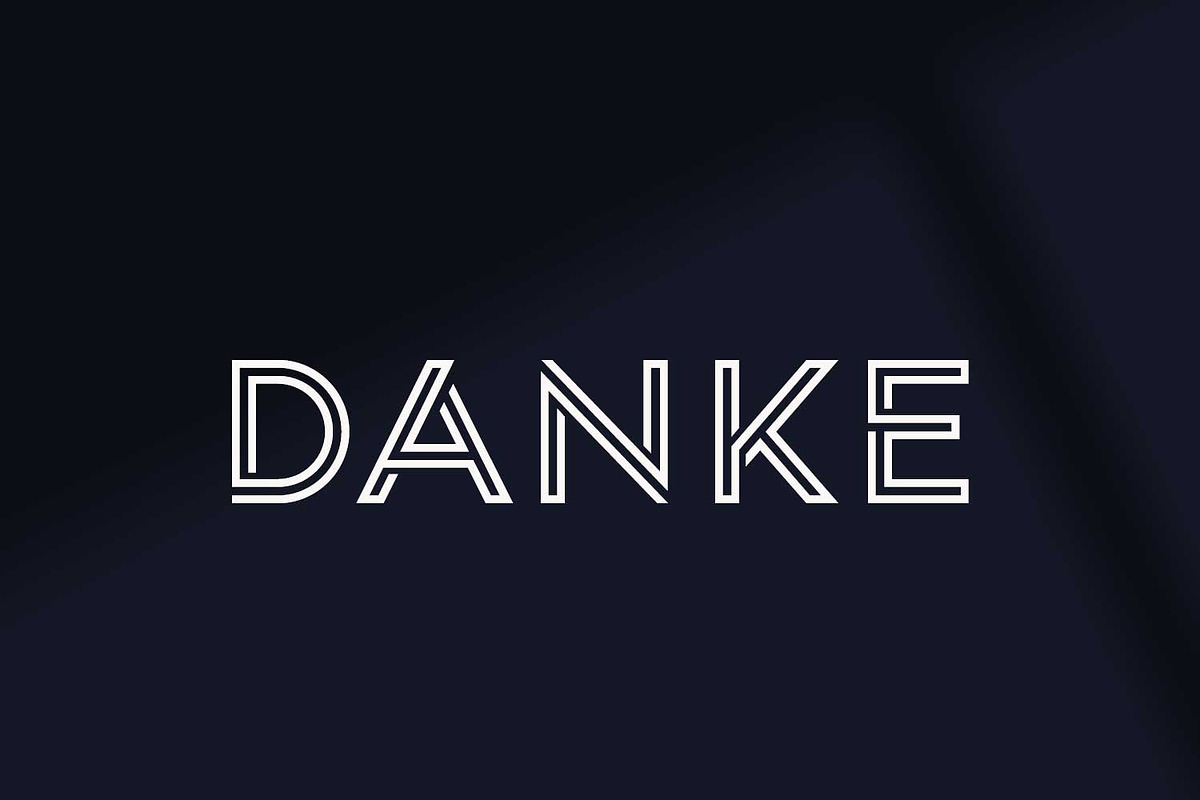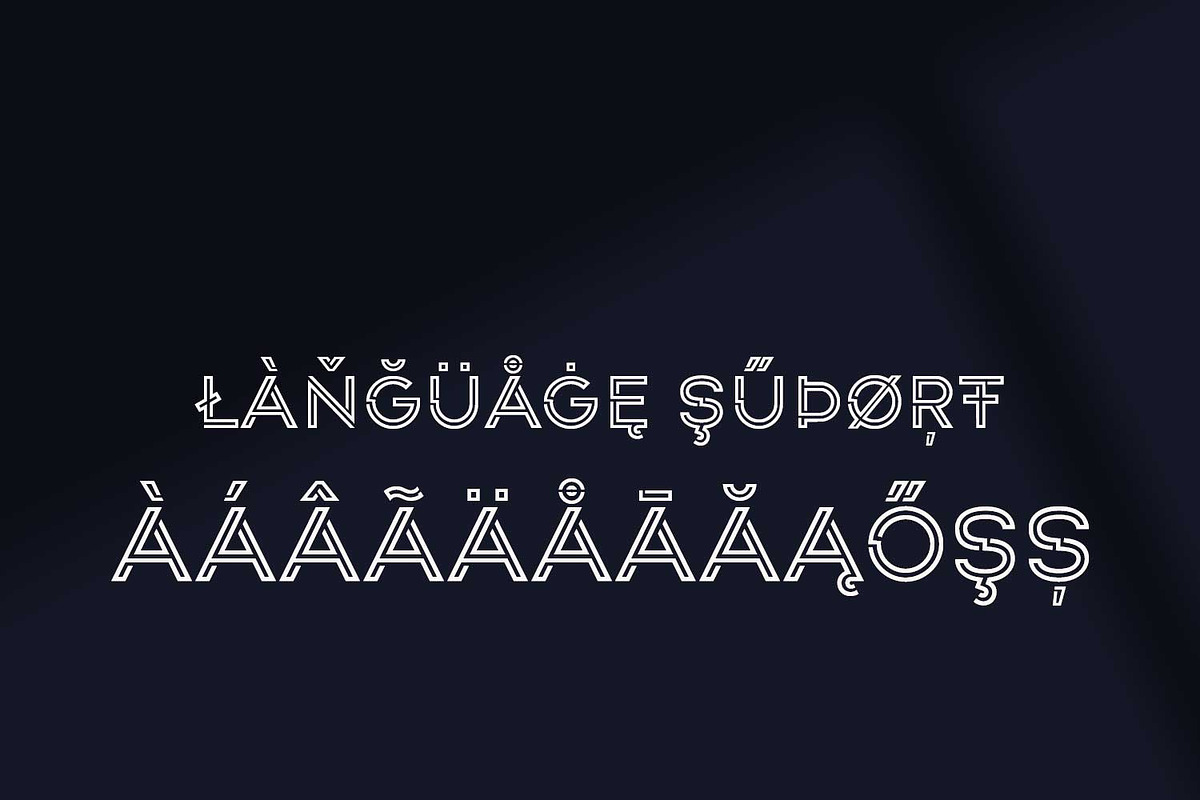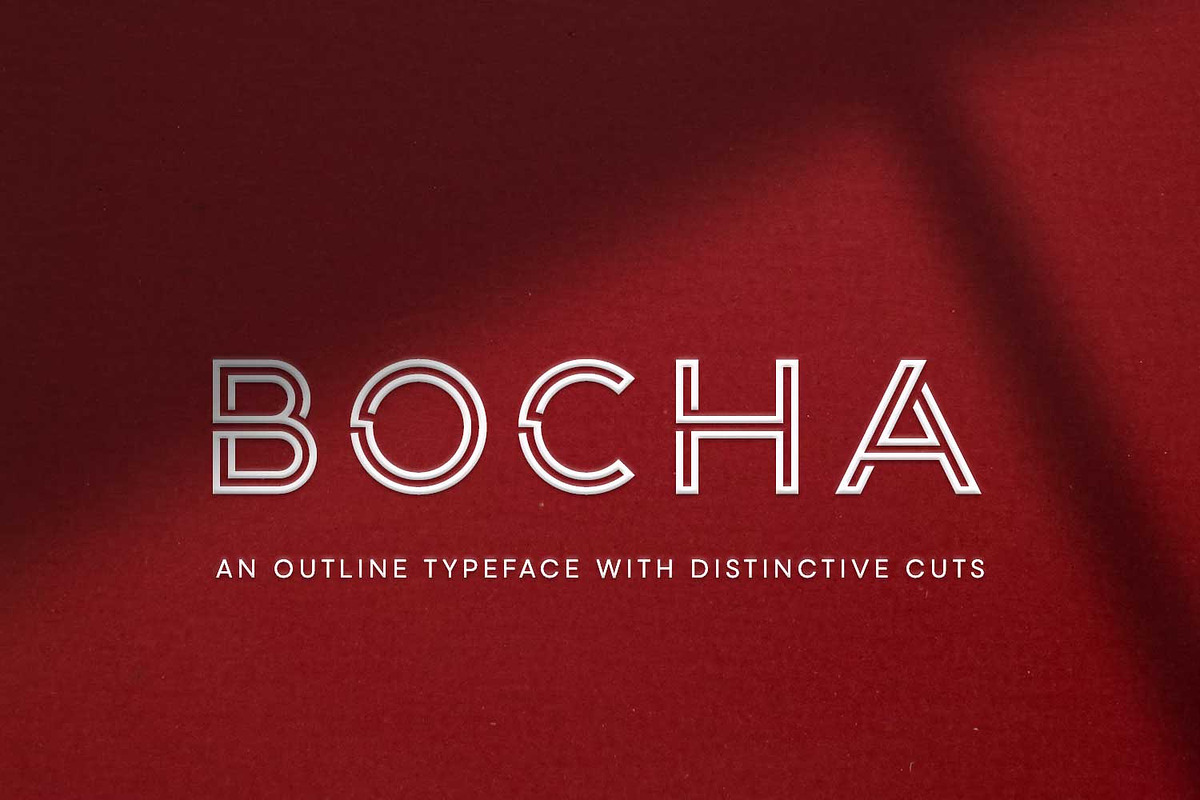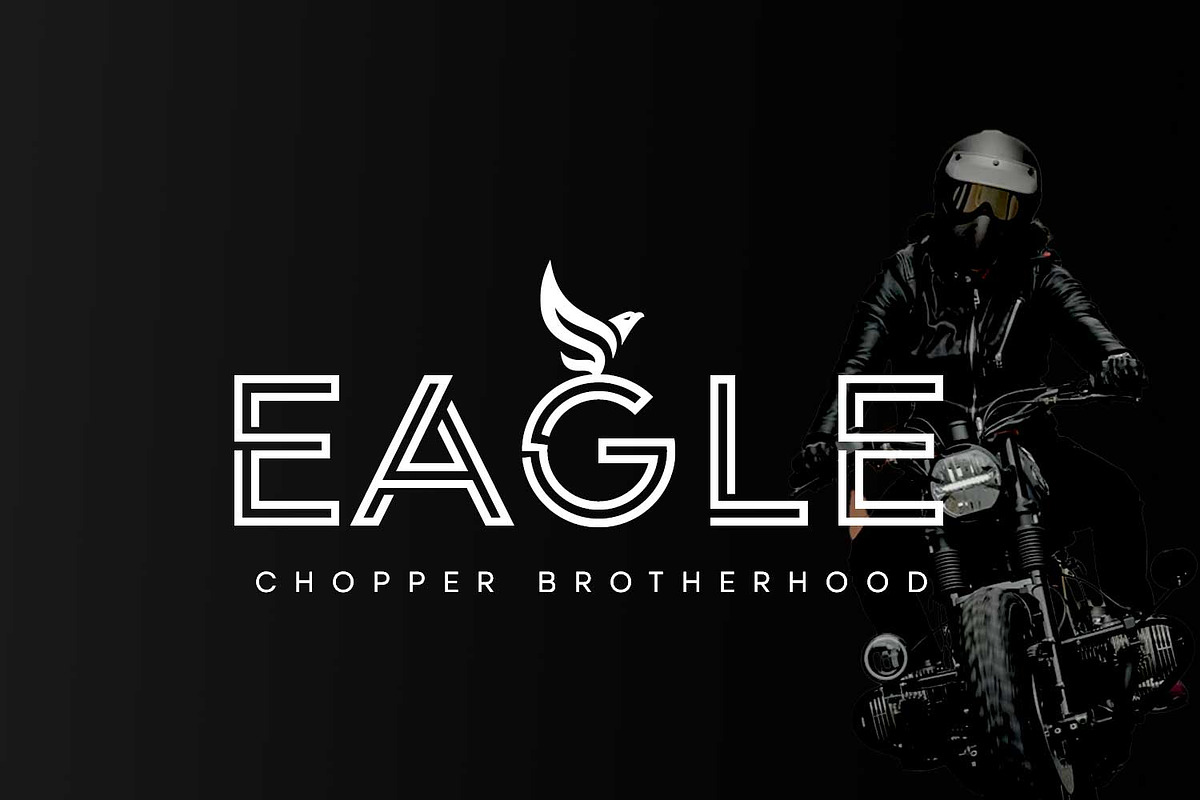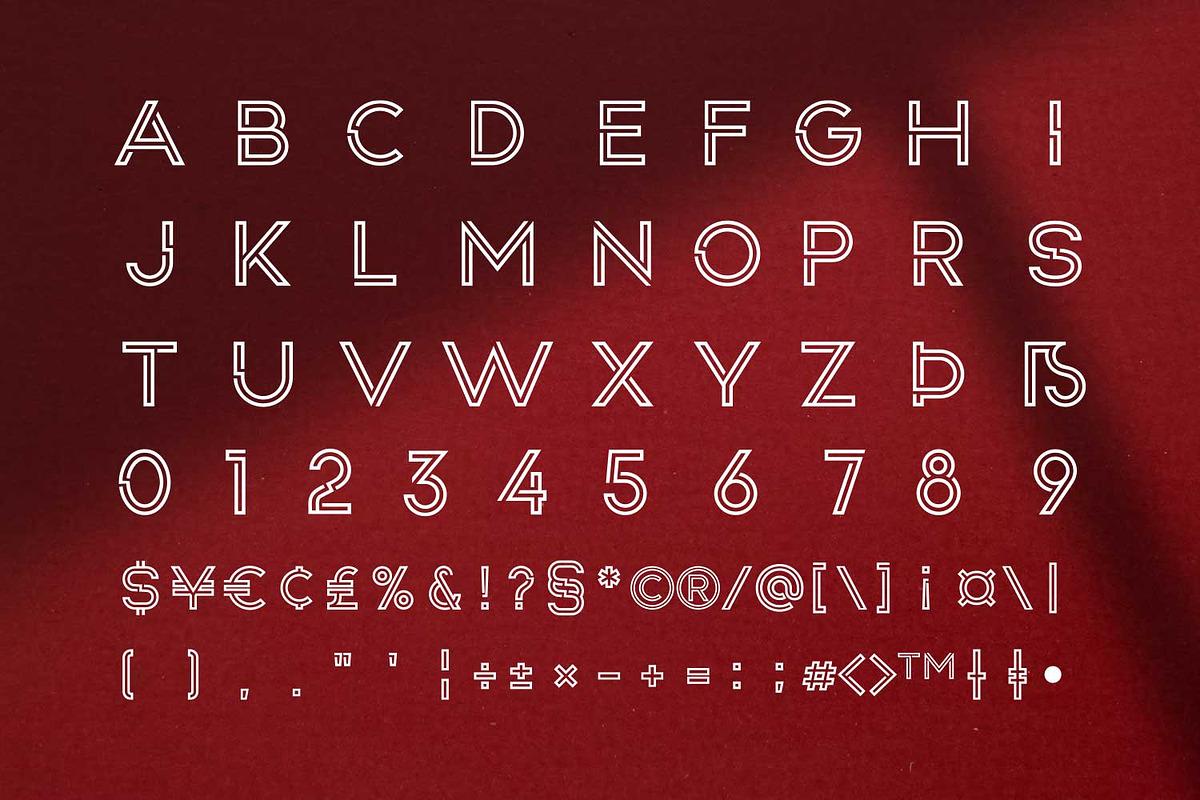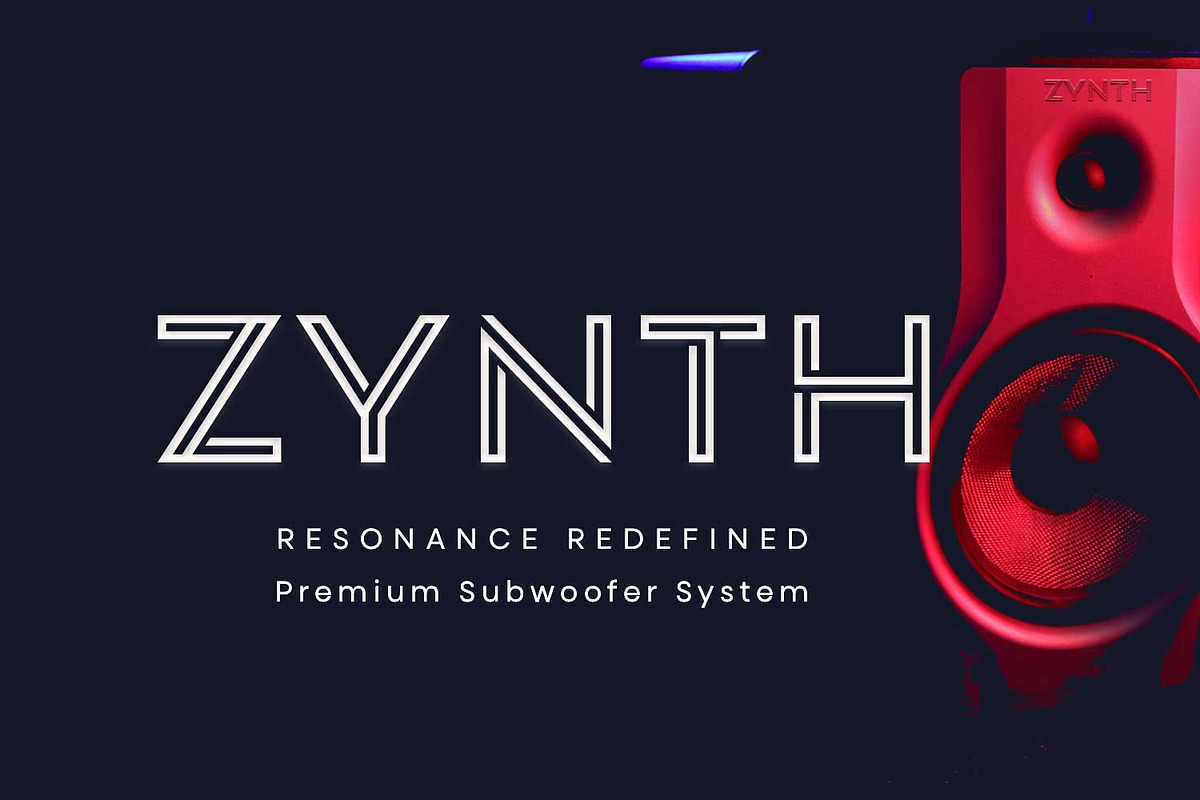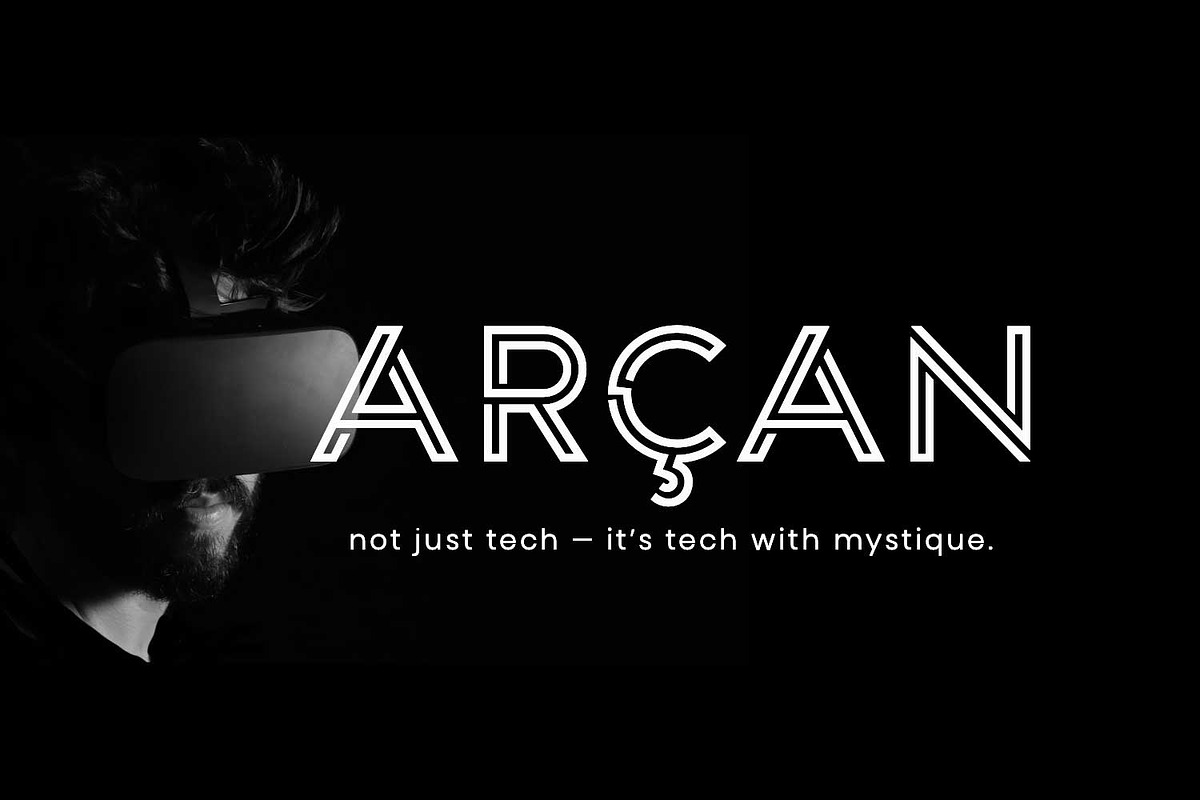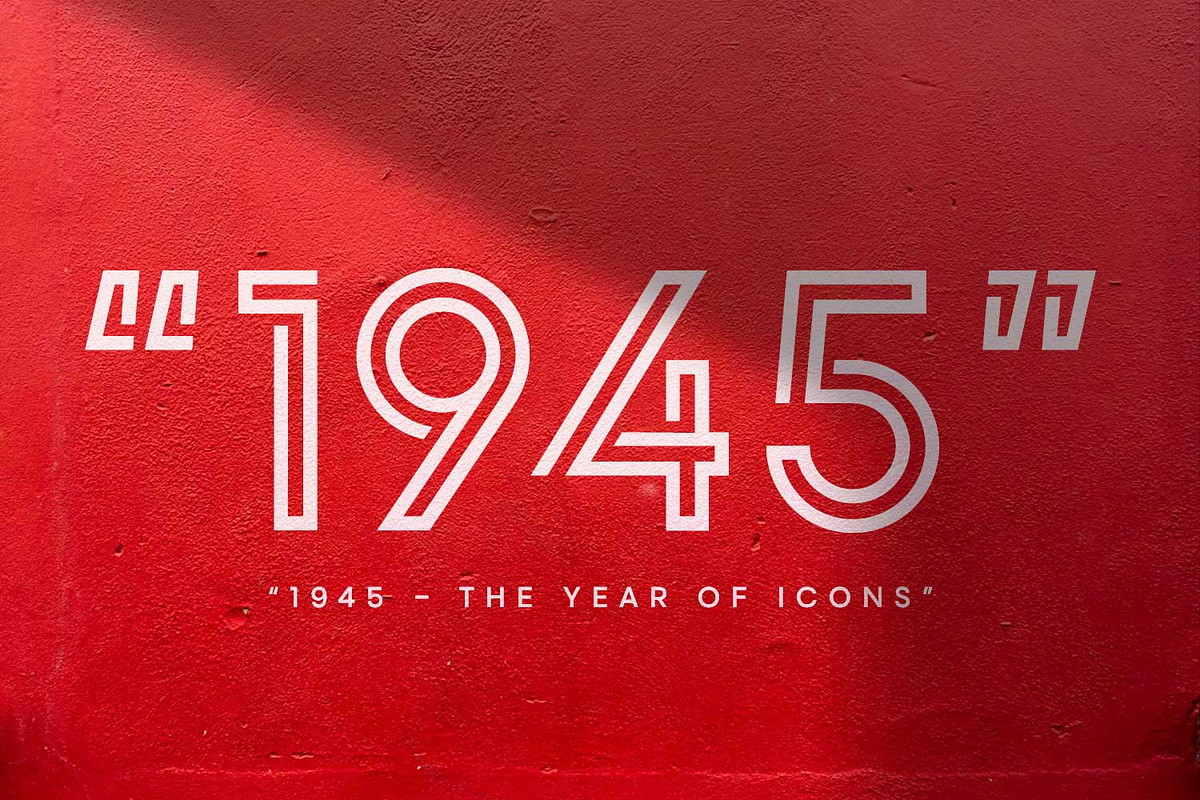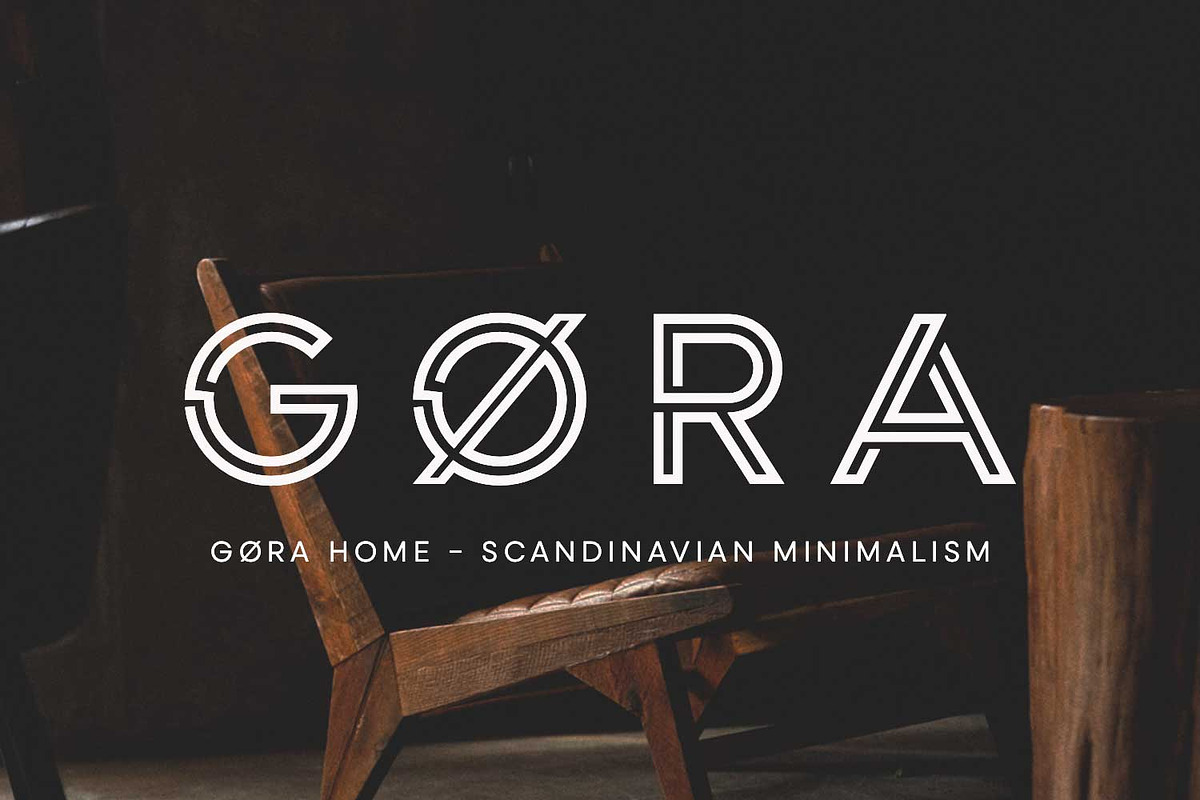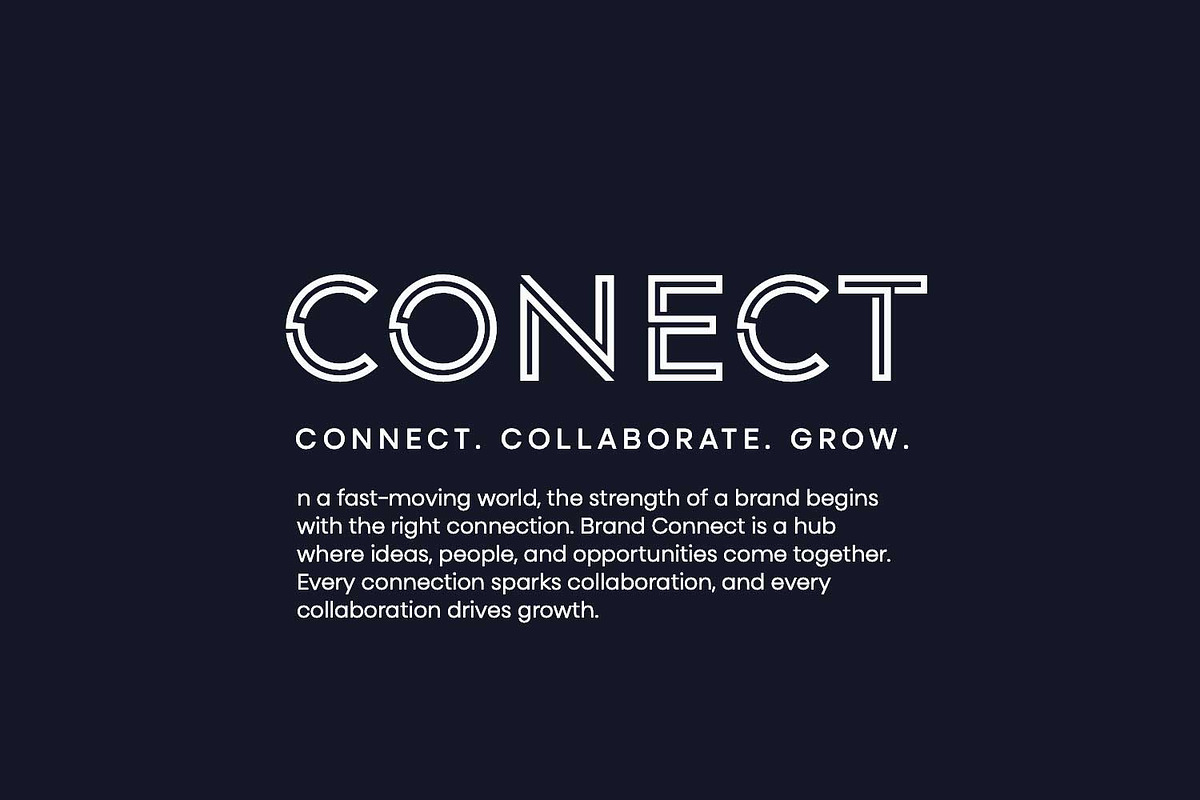
Bocha
Bocha is an eye-catching all-caps outline display typeface characterized by its bold lines, sharp cuts, and geometric balance. Merging a futuristic aesthetic with retro charm, Bocha establishes a powerful visual identity that immediately captures attention. This versatile font is ideal for a variety of applications, including logos, posters, editorial layouts, and innovative branding projects, ensuring that every design stands out with authority and style. Explore the distinct features that make Bocha a compelling choice for impactful designs.